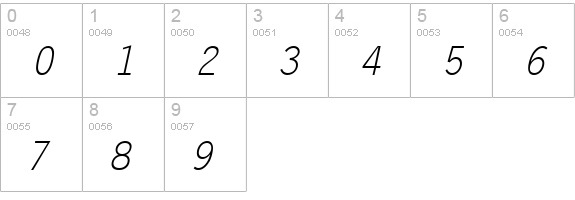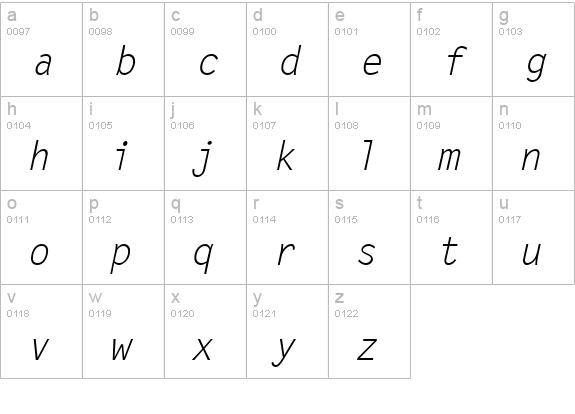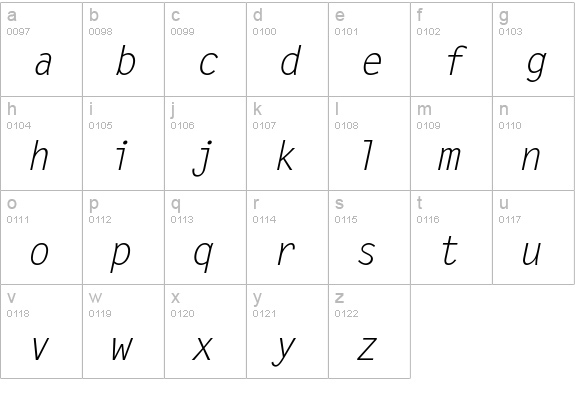
Monospaced Italic Font Details
Monospaced Italic is a distinctive, italic variant in the Monospaced typeface family \xE2\x80\x94 well suited to design and typography projects.
The Monospaced Italic font is a sleek and modern typeface that combines the classic look of monospaced fonts with a stylish italic twist. Its clean lines and distinctive slant make it ideal for adding a touch of sophistication to any design project. The Monospaced Italic font is versatile and can be used for a wide range of applications, from branding to editorial design. Best of all, this font is completely free to download! You can get your hands on the Monospaced Italic font at FontsMarket.com. Whether you're a designer looking to elevate your work or just someone who appreciates a well-crafted font, this typeface is sure to impress. Download it today and add a touch of elegance to your next project.